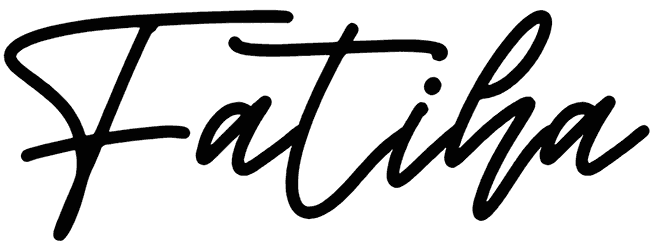
Fatiha Font
Fatiha is designed in a way that depicts the natural and organic art and beauty of human handwriting. Due to its illegibility and complex twists, this handwritten font can be used as a decorative element or for statements that require focus.